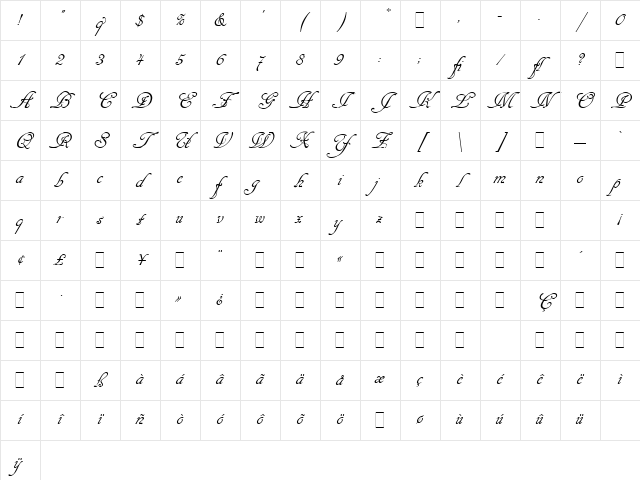
Cancellaresca Script LET Plain
Design Context for Cancellaresca Script LET
Cancellaresca Script LET flows with the natural rhythm of handwritten lettering, making it ideal for designs that call for warmth and personal expression.
Font Pairing: Combine Cancellaresca Script LET with a simple geometric sans for maximum contrast - the tension between flowing curves and clean structure is a classic typographic pairing.
Pro Tip: Use Cancellaresca Script LET for short runs of text - names, titles, or taglines. Extended body copy in script faces tires the eye quickly.